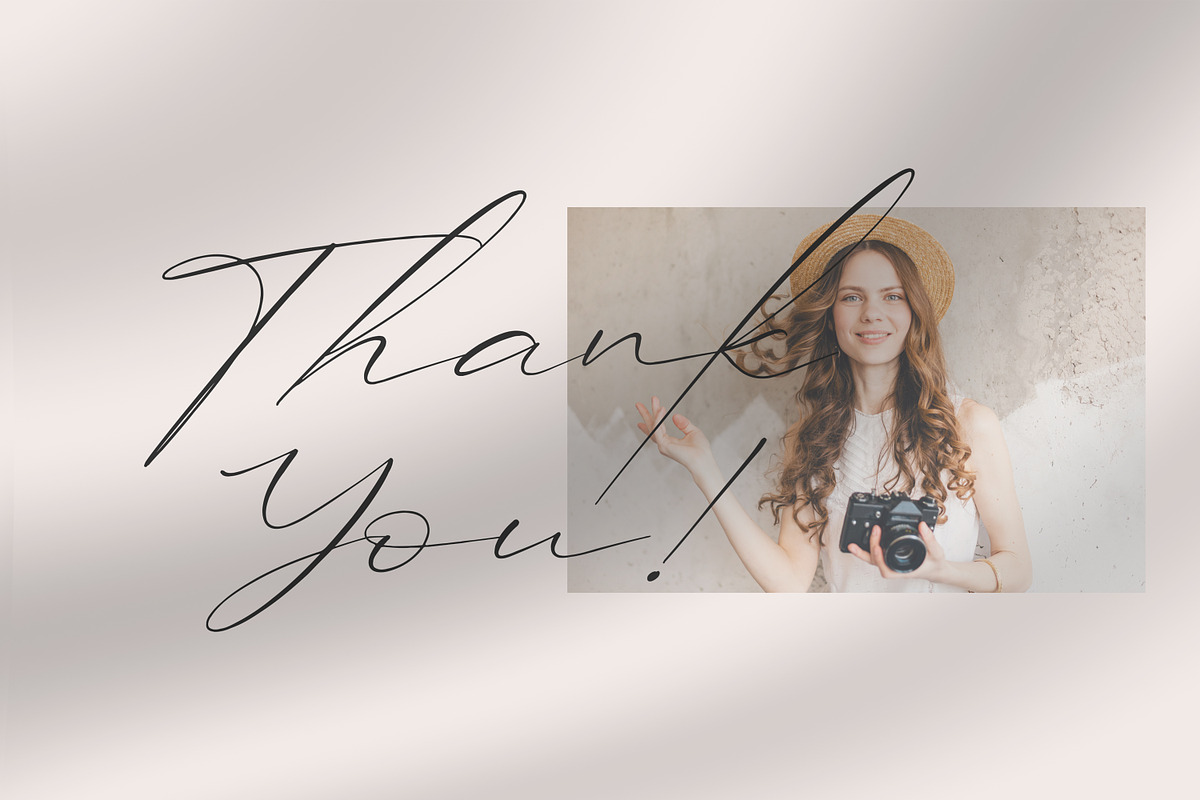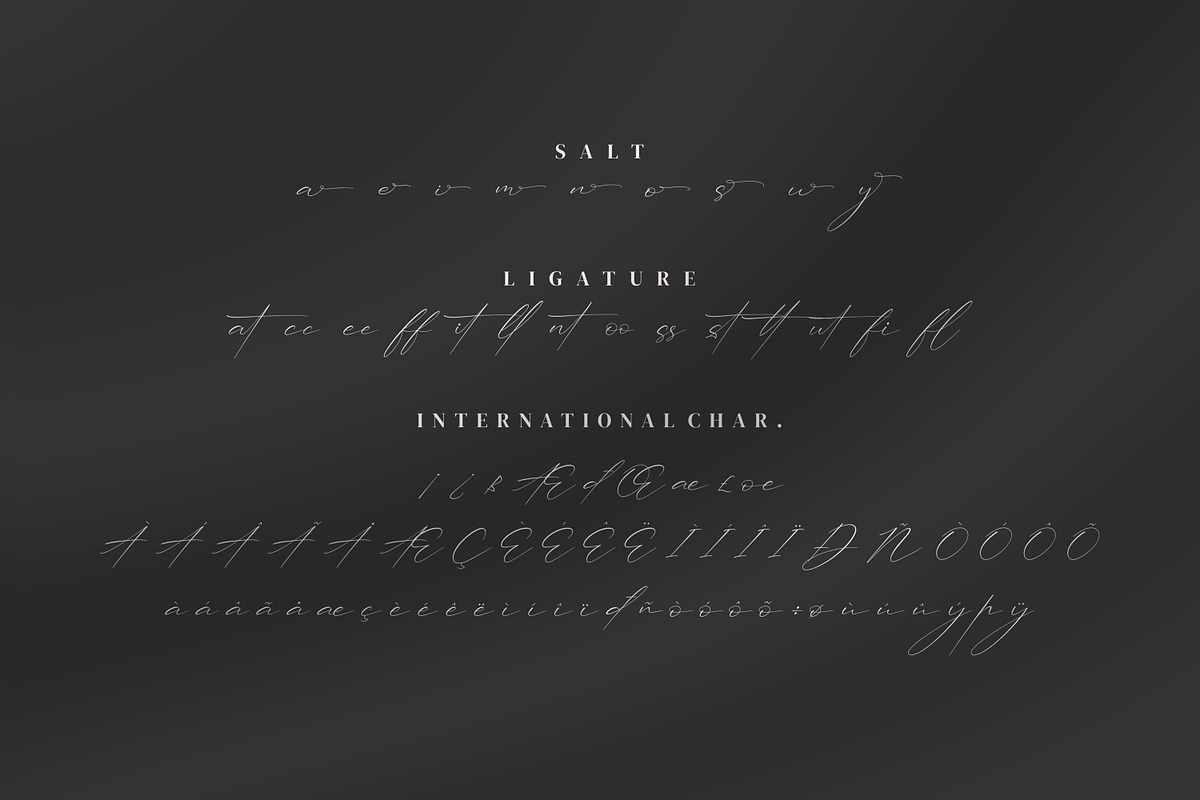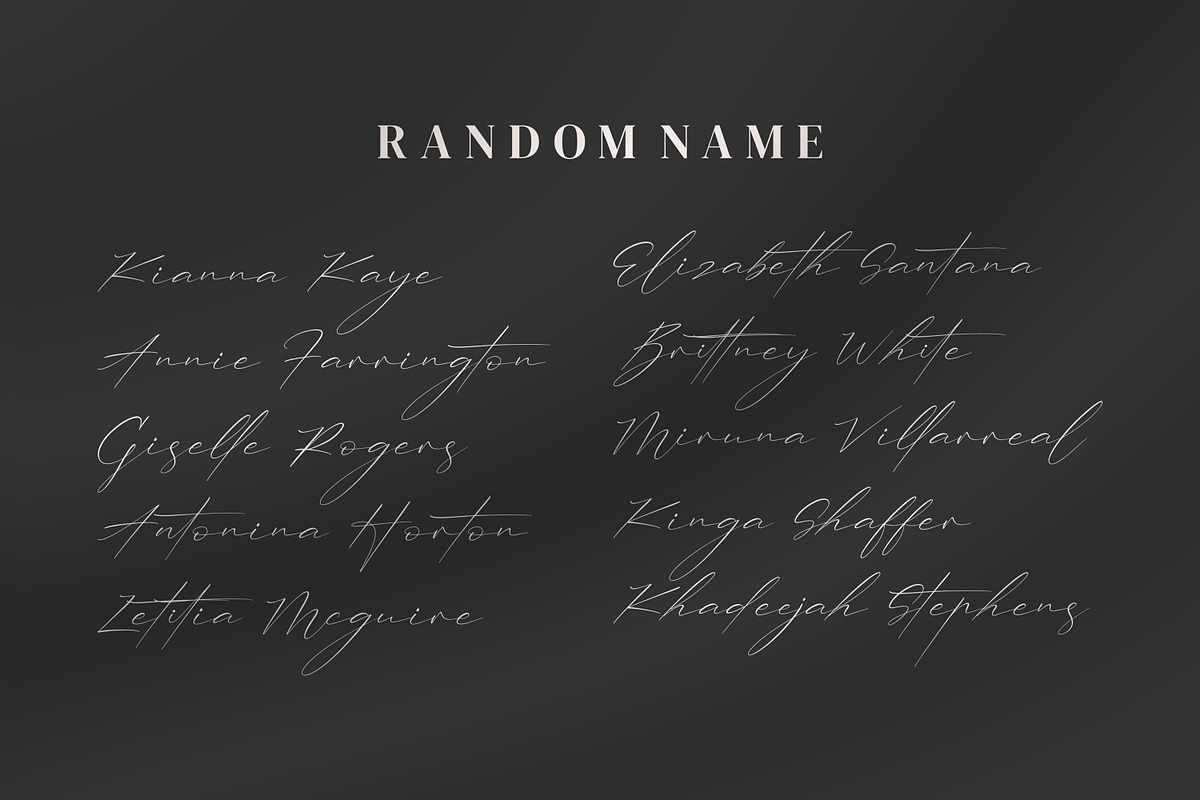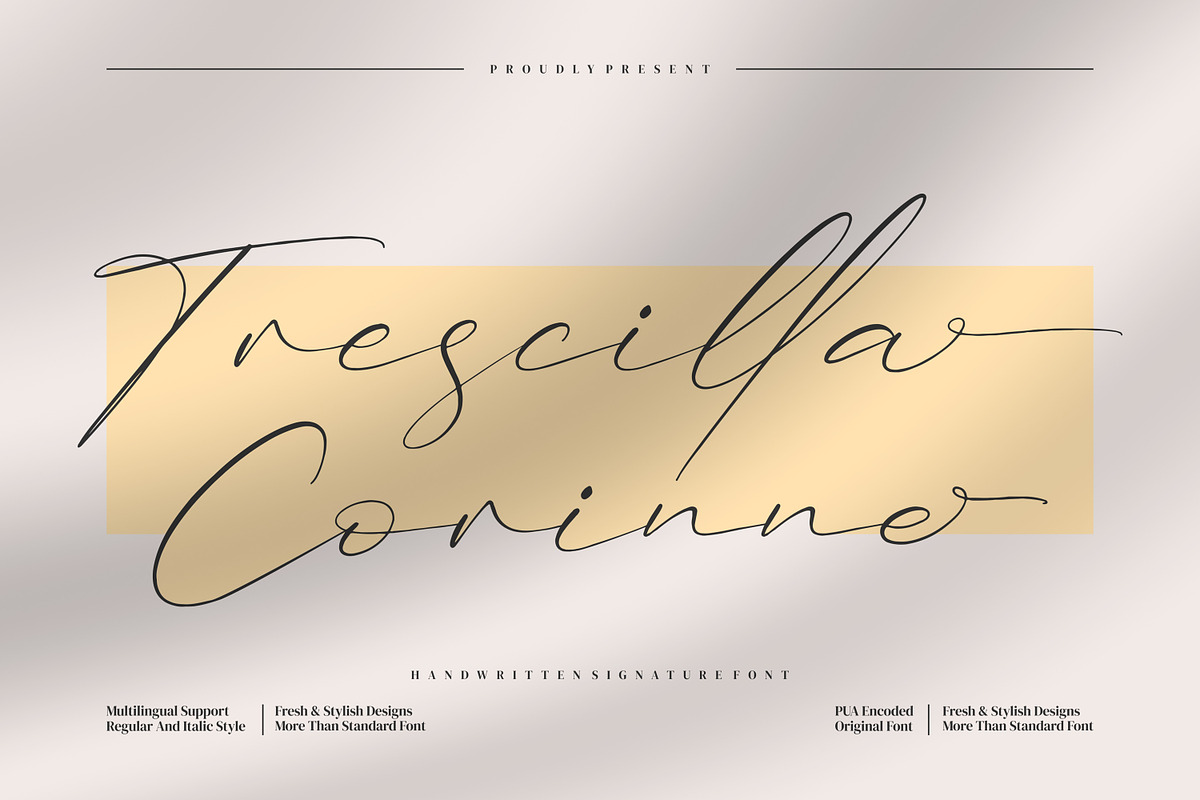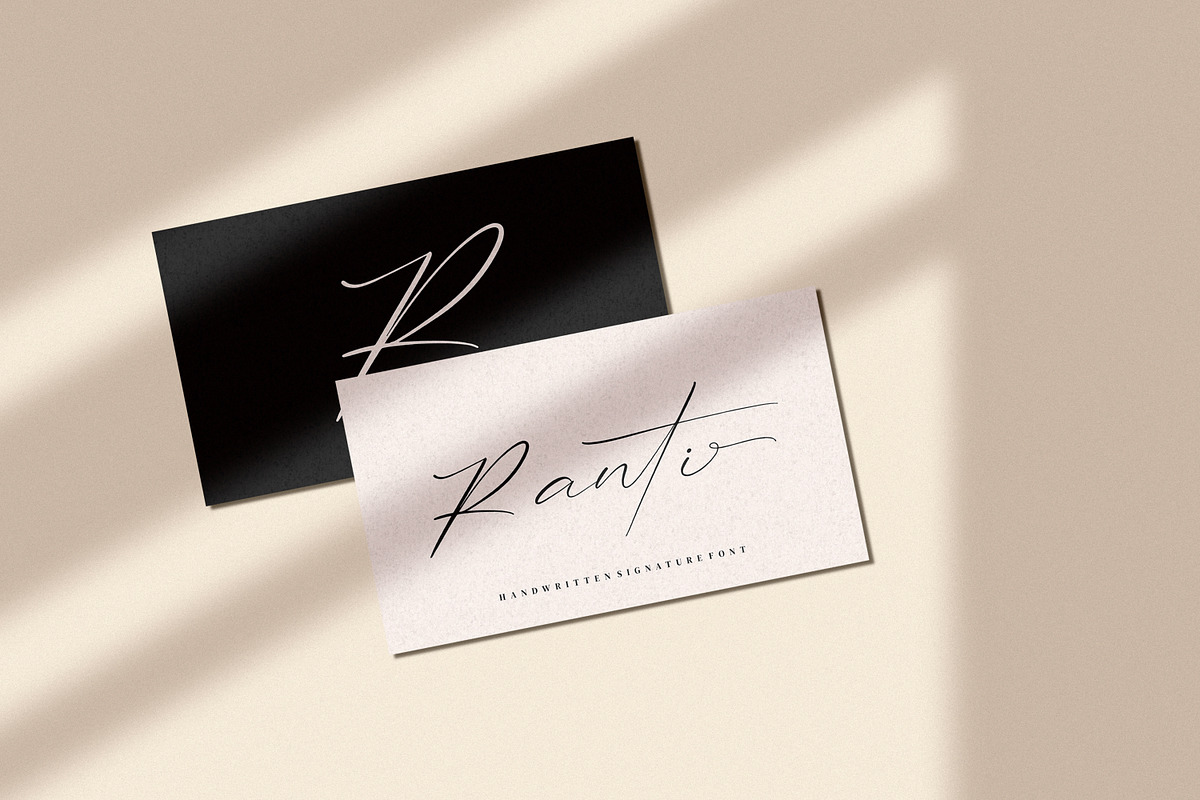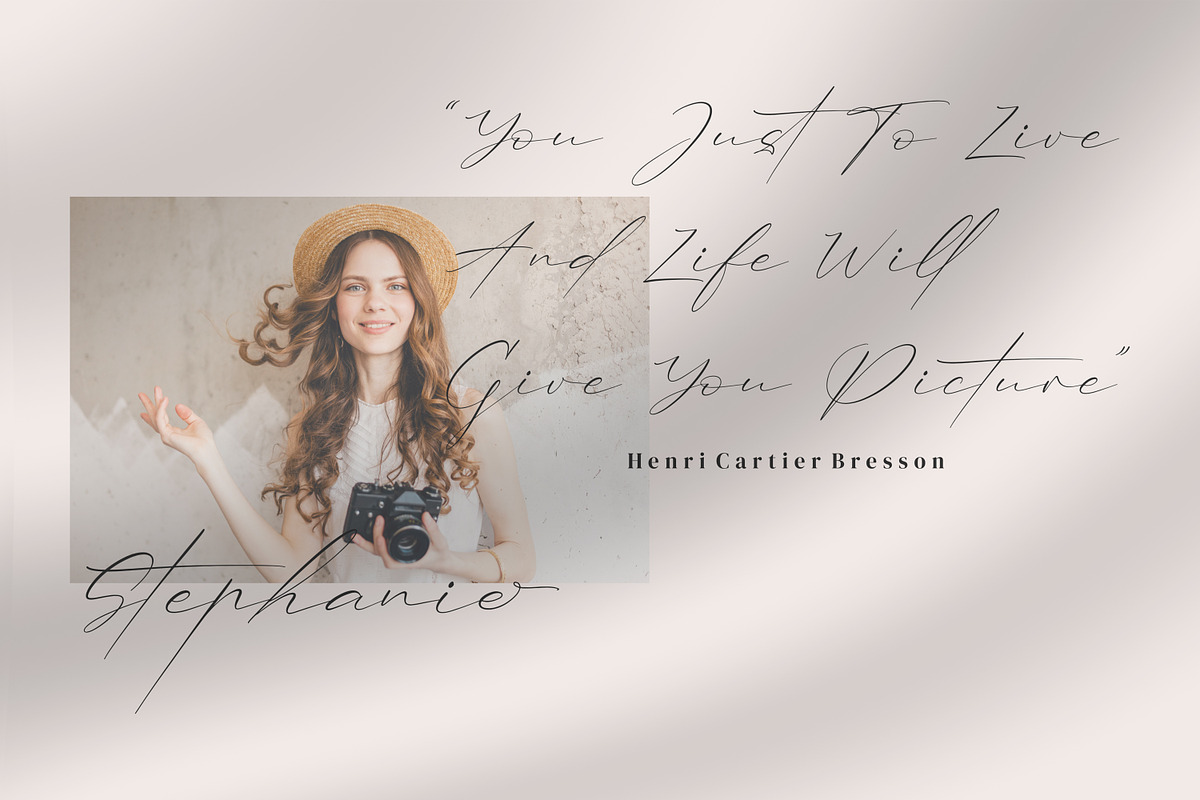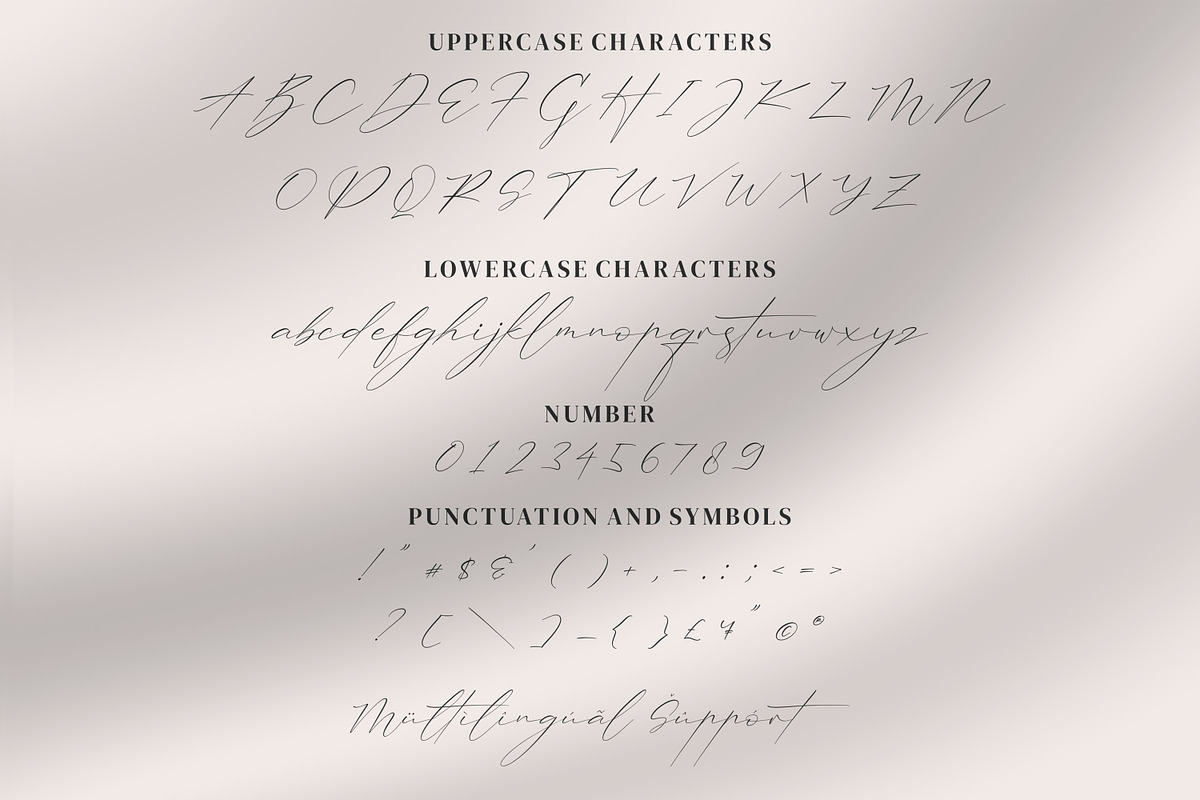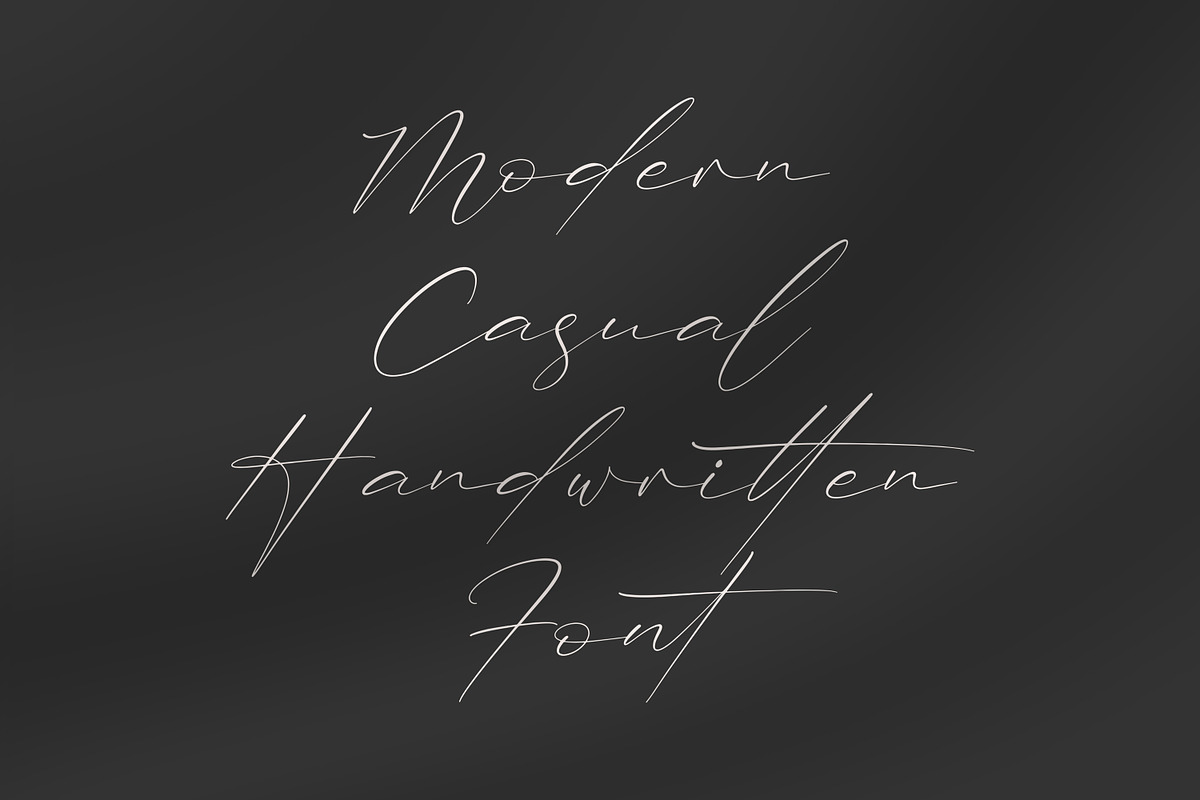
Trescilla Corinne
Trescilla Corinne - Handwritten Signature Font, from Integritype Studio, is a premium Handwritten Signature Font, perfect for any project like: logos, branding projects, homewares designs, product packaging, mugs, quotes, posters, shopping bags, t-shirts, covers books, business cards, invitation cards, greeting cards, labels, photography, watermarks, special events and all your other luxury projects that require a premium taste.
Ligatures, Alternatives & Swashes